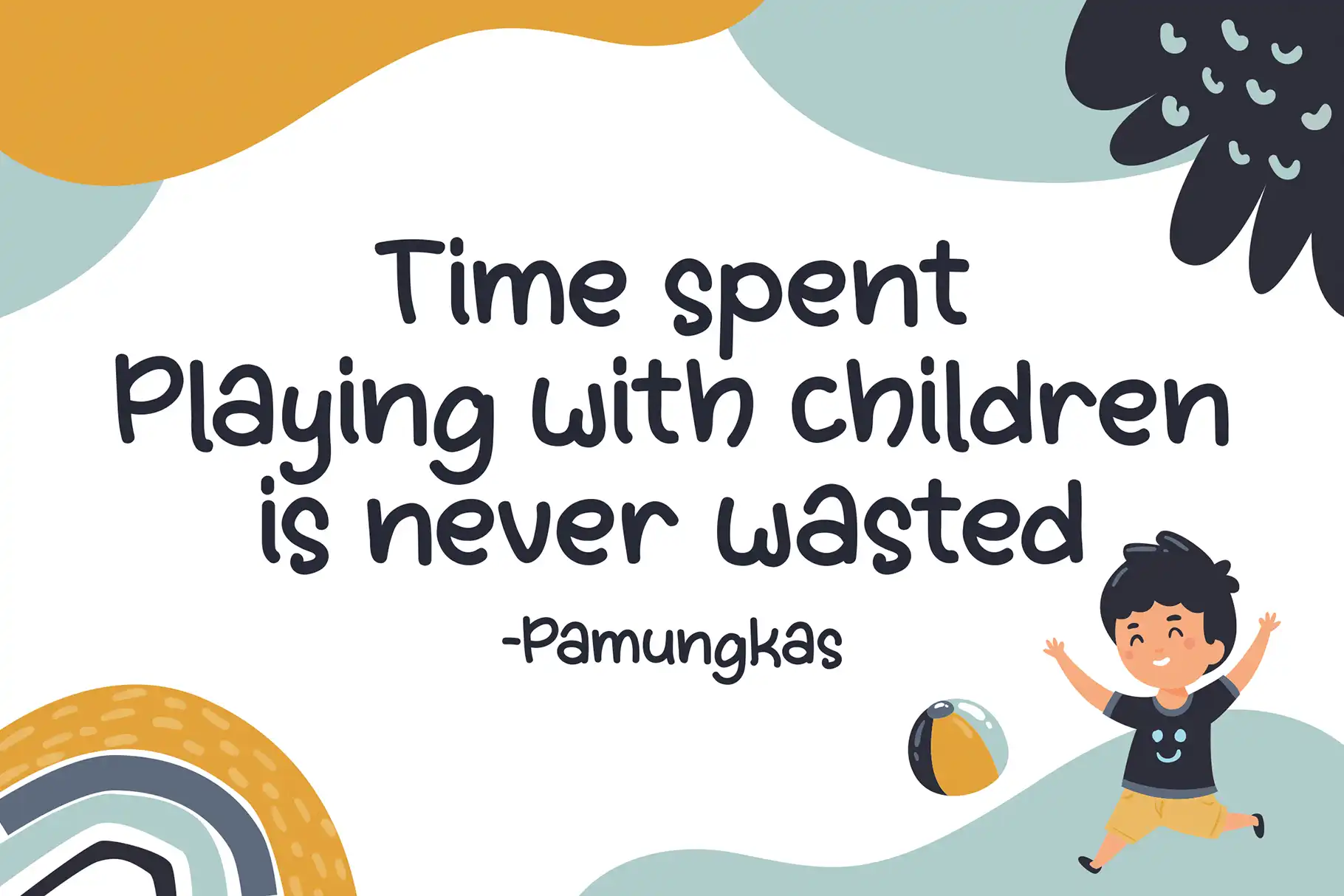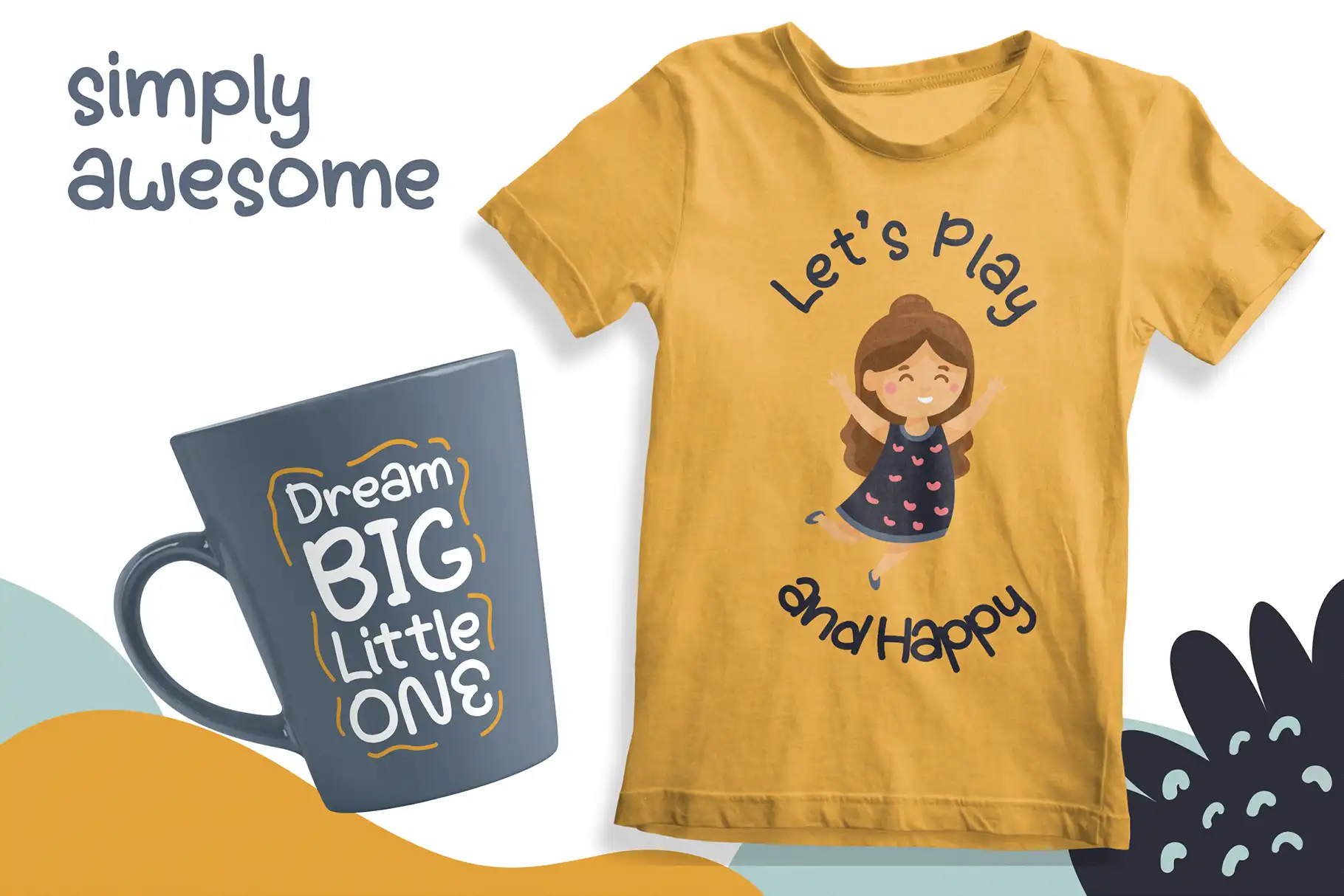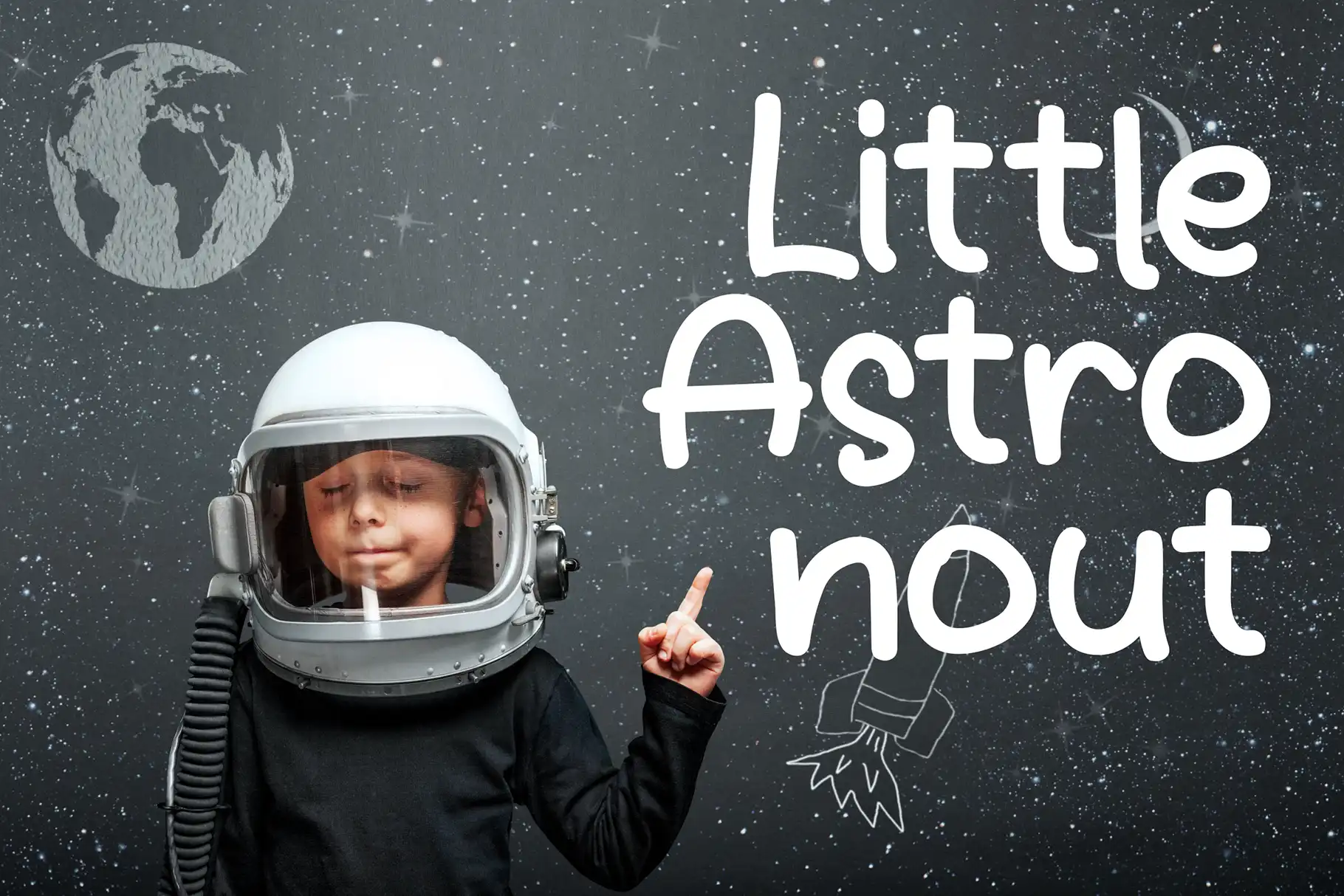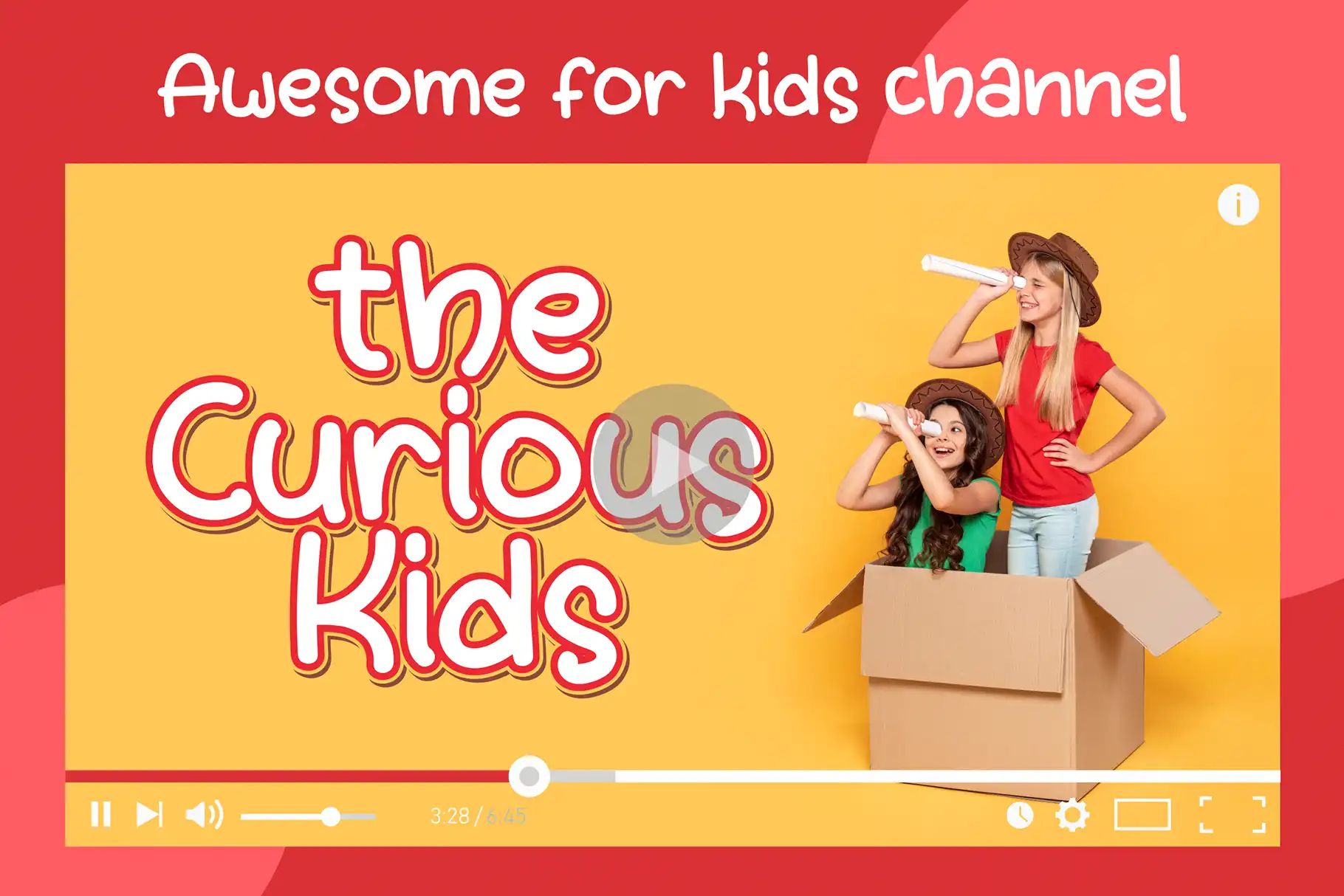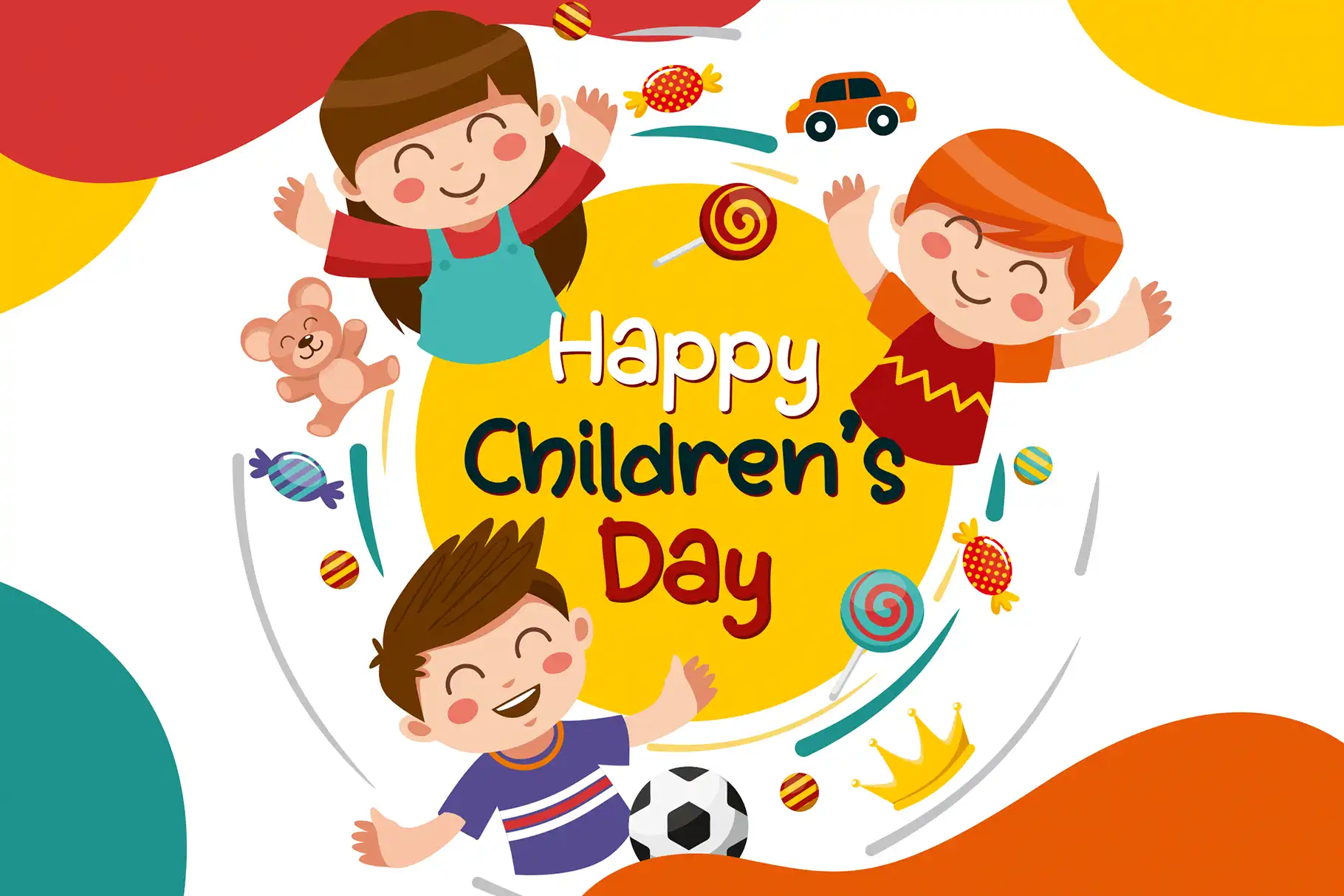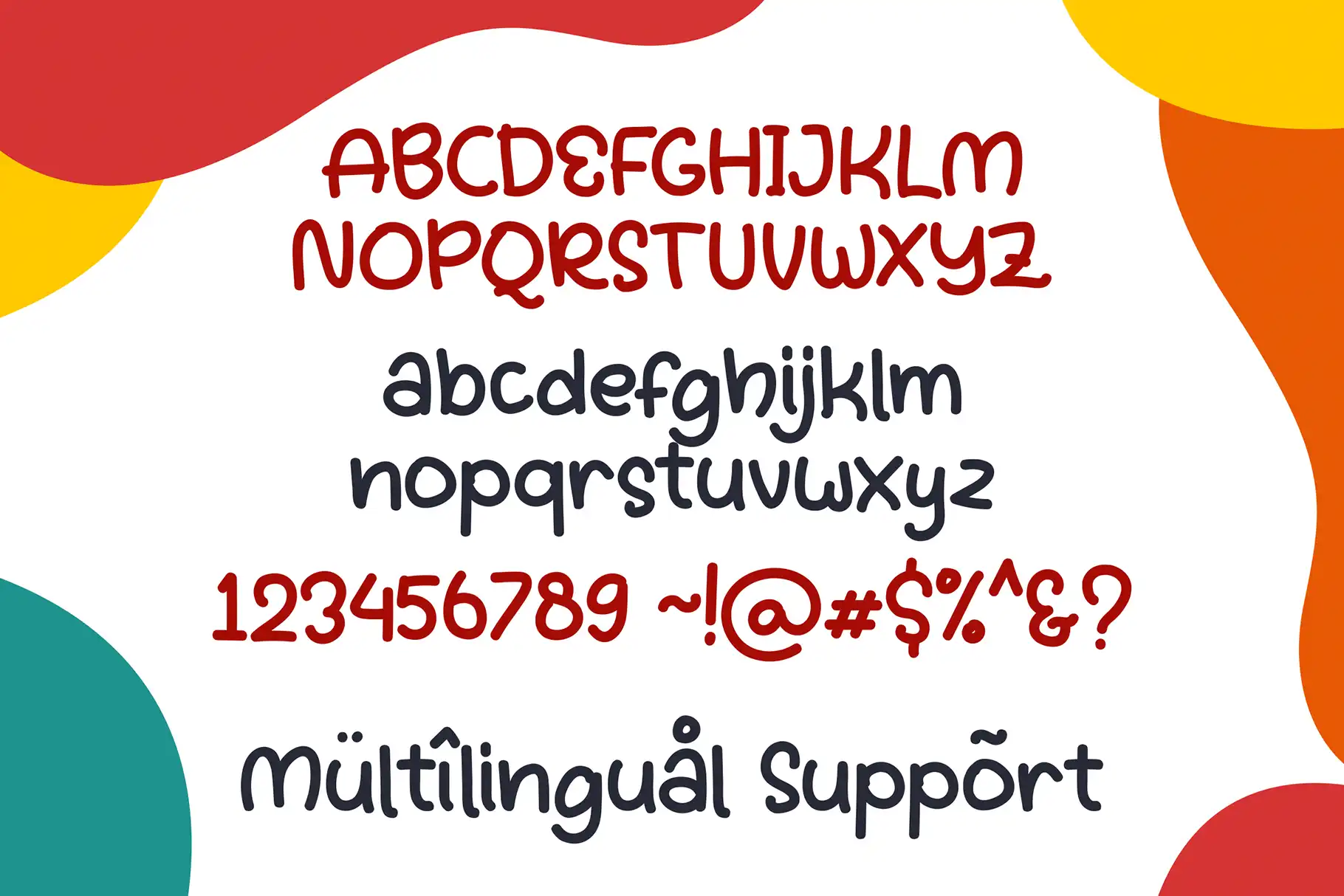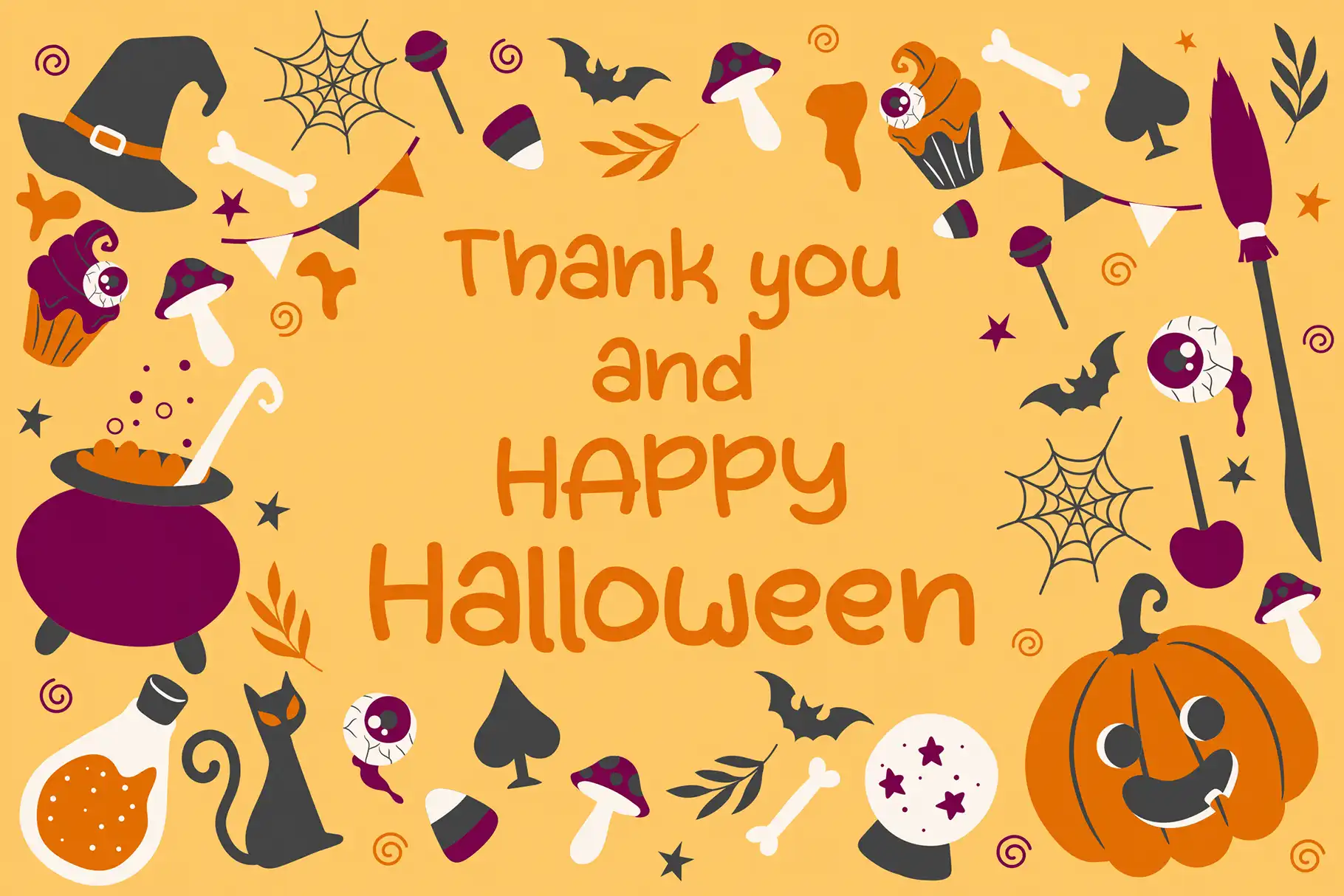
Onekids Playful Display Font for Cheerful Creative Work
Onekids Playful Display Font is a cheerful handwritten typeface created for designs that need warmth, personality, and an easygoing visual voice. Its playful character gives words a friendly presence, making it a practical choice for children-focused projects, casual branding, colorful packaging, creative merchandise, and digital content.
The handwriting style helps your message feel more personal than a rigid or formal typeface. It can bring energy to a short headline, soften a brand identity, or make a product name feel welcoming and approachable. Whether you are creating for young audiences or simply want typography with a lighthearted mood, Onekids offers a distinctive foundation for expressive design.
Onekids combines the impact of a display font with the natural personality of handwriting. The result is typography that feels lively, informal, and human without losing its ability to hold attention.
Its playful direction makes it especially effective when the words themselves need to become part of the illustration or visual story. A simple title can feel more energetic, while a short product name can gain a friendlier and more memorable appearance.
The handwritten style works naturally with bright color palettes, simple illustrations, doodles, textured backgrounds, stickers, and child-friendly graphics. It can also be used with cleaner layouts when you want the typography to become the main expressive element.
Onekids is not limited to children’s projects. Designers can also use it for casual lifestyle brands, handmade products, creative campaigns, food packaging, seasonal promotions, and social media content that needs an approachable personality.
Best Use Cases
Onekids is designed for display applications where personality and visual energy matter. It works particularly well for short headlines, product names, promotional messages, and decorative text.
Use it for children’s book covers, classroom materials, school event graphics, educational worksheets, activity sheets, birthday invitations, nursery prints, and playful learning resources. Its handwritten appearance can help these projects feel less formal and more engaging.
For branding projects, Onekids can add a cheerful voice to logos, labels, packaging, stickers, and supporting campaign graphics. It is a fitting option for toy brands, children’s clothing, handmade goods, snack products, creative workshops, family businesses, and playful digital shops.
Content creators can apply Onekids to YouTube thumbnails, video titles, social media graphics, story posts, promotional banners, and quote designs. Its display-oriented personality helps short messages stand apart from surrounding images and supporting text.
Key Features of Onekids Playful Display Font
• Playful display font style
• Natural handwriting-inspired appearance
• Uppercase characters
• Lowercase characters
• Numbers
• Punctuation
• Multilingual support
• Suitable for print and digital creative projects
These features make Onekids a flexible choice for designers who need expressive typography while still having access to essential characters for complete headlines, names, captions, and short promotional messages.
Onekids helps designers communicate joy without relying on complicated decorative elements. Its handwritten personality can give a layout an immediate human touch, which is especially valuable for brands and products that need to feel friendly, creative, and accessible.
The font can also reduce the amount of visual work needed to establish a playful mood. Instead of building an entire composition around illustrations, designers can let the typography carry part of the character. A bold color, a short phrase, and Onekids may be enough to create a clear and engaging focal point.